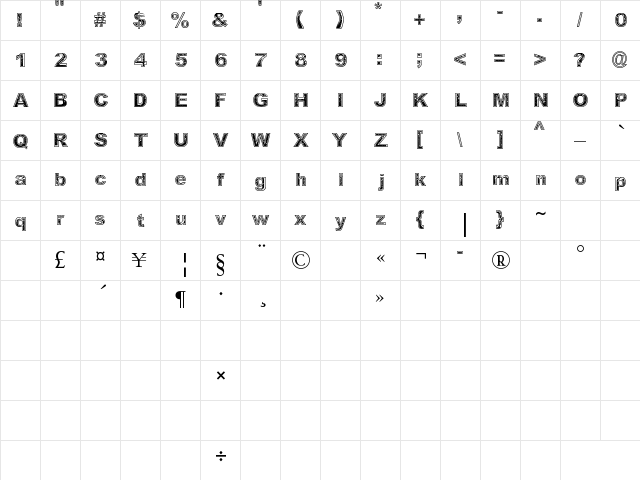
Determined Regular
Design Context for Determined Typeface
Determined is a composed and adaptable typeface that performs quietly and consistently across a wide range of design contexts.
Pro Tip: Use Determined in both headline and body roles to test its range before committing to a single application.